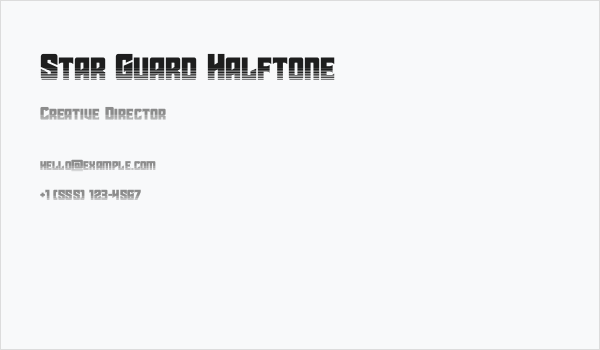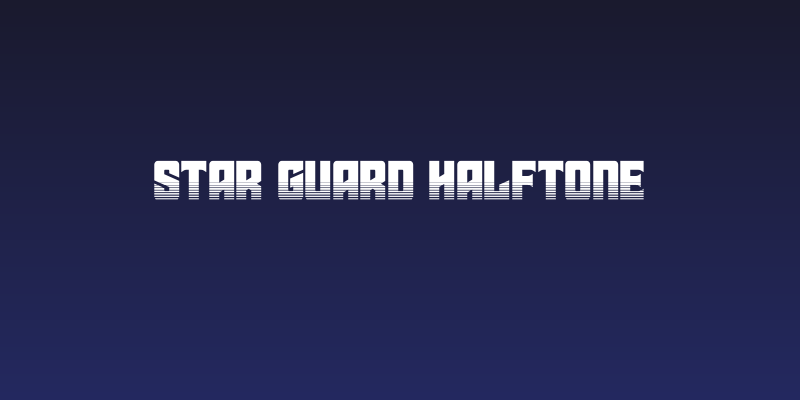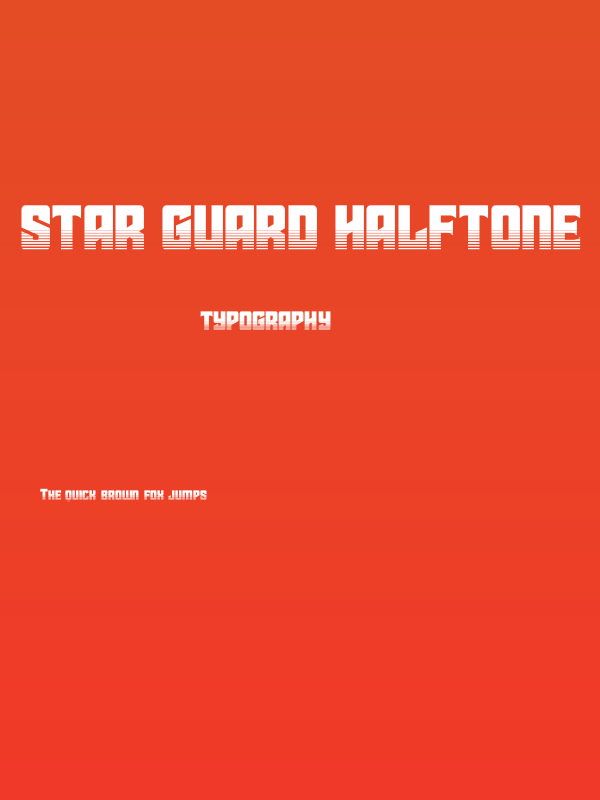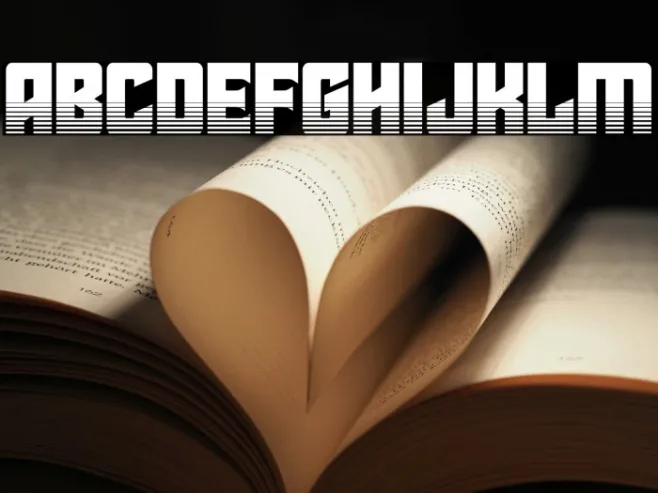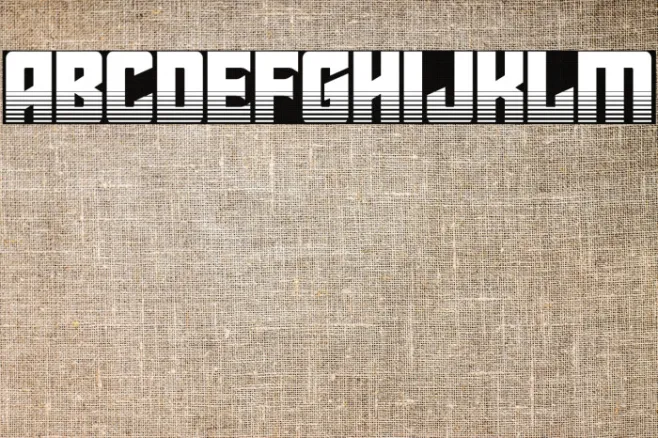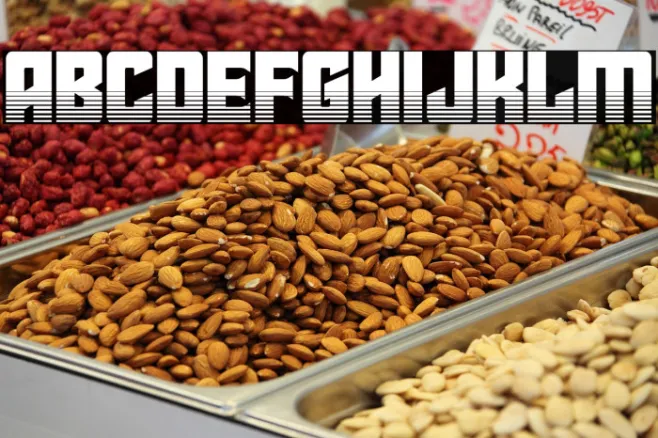
Star Guard Halftone Font
Star Guard Halftone Description
This font features a bold, futuristic design with a unique halftone effect that gives it a dynamic, digital appearance. The characters are blocky and geometric, with horizontal lines creating a gradient effect from top to bottom. This design element adds depth and a sense of movement, making it stand out for modern and tech-oriented projects. The uppercase and lowercase letters maintain a consistent style, while the numbers and special characters integrate seamlessly with the overall aesthetic. The font's strong visual impact makes it ideal for attention-grabbing headlines and logos.
| Overall Style | Futuristic, Modern |
| Proposed Projects | Ideal for sci-fi themed designs, tech company branding, video game titles, and futuristic posters. |